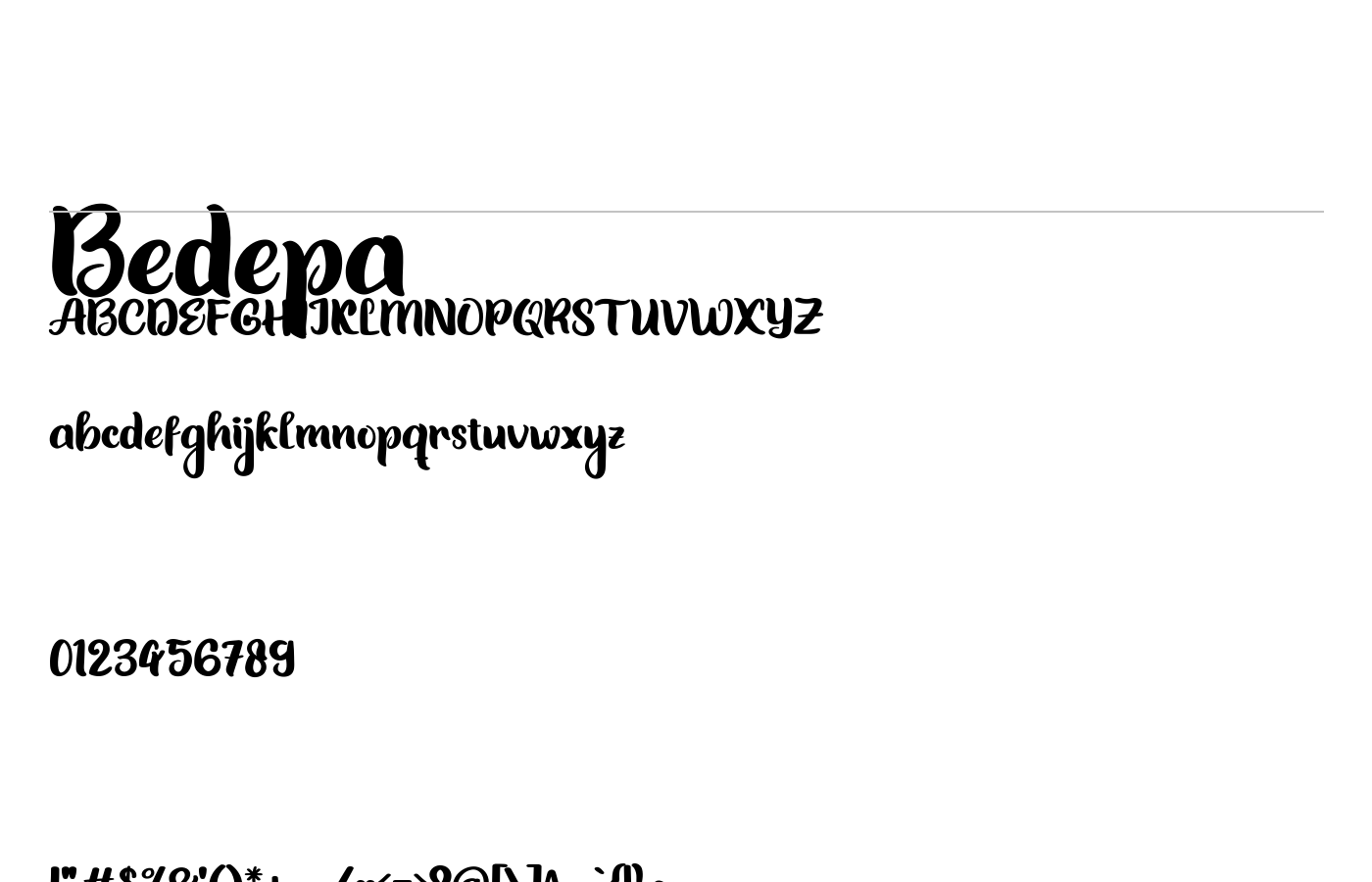
Bedepa is a playful and bold script font with a strong personality, featuring thick, rounded strokes and lively, slightly irregular shapes that give it a handcrafted feel. Its medium contrast and unique letterforms make it ideal for eye-catching headlines and creative branding where a fun, informal vibe is desired. This font works well for packaging, posters, and logos that want to stand out with a friendly and artistic touch.
Bedepa Font